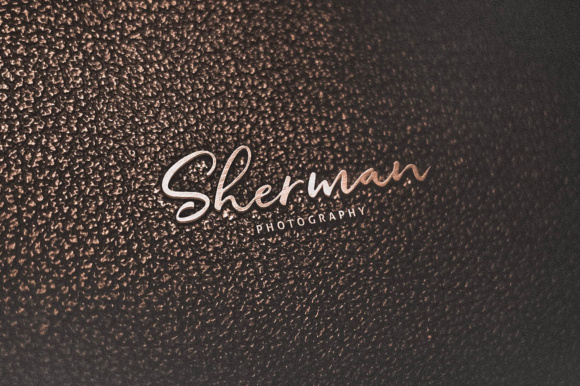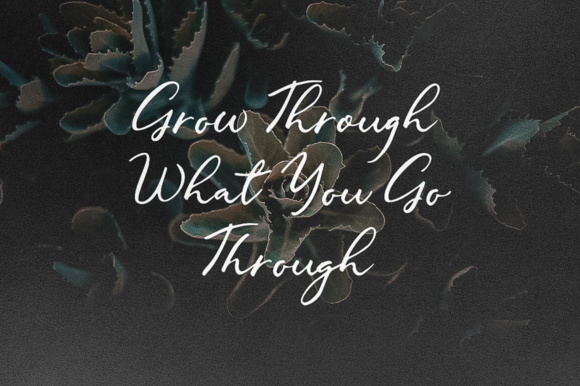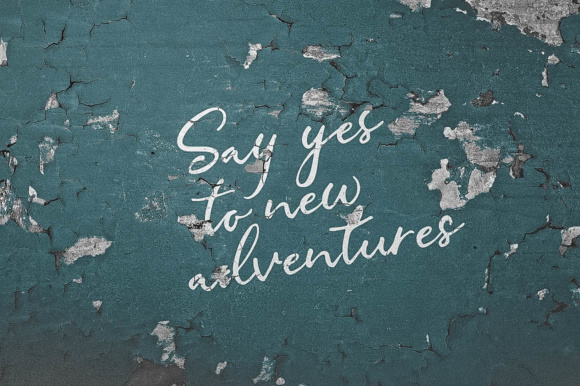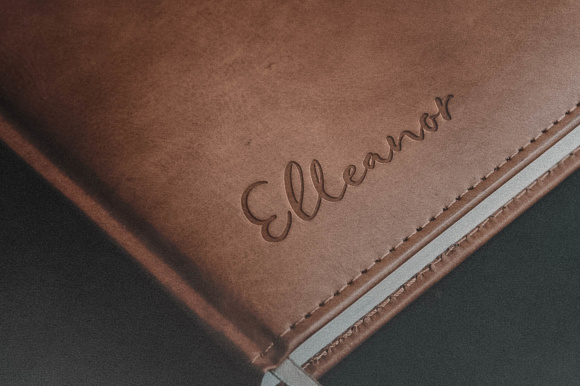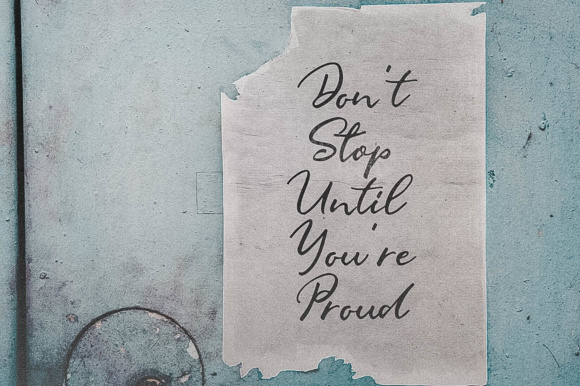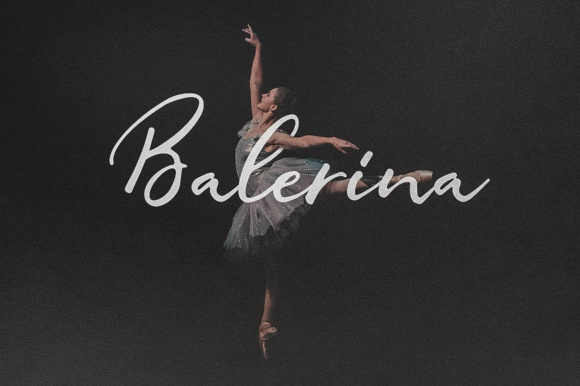
The Designer’s Delight: Gallendo Font
I still remember the frustration of working on a project, hours spent searching for the perfect font, only to end up with something that just didn’t feel right. My client wanted a refined, stylish look, but I was stuck in a sea of bland, generic scripts. That’s when I stumbled upon Gallendo, a beautiful handwritten script font that instantly elevated my designs. In this article, I’ll share my experience with Gallendo, its features, and how to make the most of it in your designs.
An Honest Review of Gallendo
- ✨ Natural Flow: Gallendo has a natural, flowing script style that gives designs a sophisticated look.
- ✅ Signature Styled Applications: This font shines in signature styled applications, adding a touch of elegance to any design.
- 💫 Simple yet Effective: Gallendo’s simplicity is its strength, making it easy to pair with other fonts and design elements.
While Gallendo is an excellent font, there are a few things to keep in mind:
- ⚠️ Limited Use in Body Text: Due to its script nature, Gallendo might not be the best choice for large blocks of body text. It’s perfect for headings, titles, and signatures, though!
- 🤔 Requires Attention to Spacing: As with any script font, be mindful of the spacing between words and lines to ensure it looks its best.
The Story Behind Gallendo
While the origins of Gallendo might be shrouded in mystery, it’s clear that the designer aimed to create a font that exudes elegance and simplicity. Imagine a designer, sitting with a pen and paper, trying to craft the perfect script font – that’s how Gallendo came to be. With its natural flow and refined look, Gallendo has become a favorite among designers and crafters.
Q: What type of projects is Gallendo best suited for?
A: Gallendo shines in projects that require a refined, elegant look, such as branding, packaging, and signature styled applications.
Q: Is Gallendo a difficult font to read?
A: Gallendo is a script font, and while it’s beautiful, it might be more challenging to read in large blocks of text. Use it for headings, titles, and signatures for the best results.